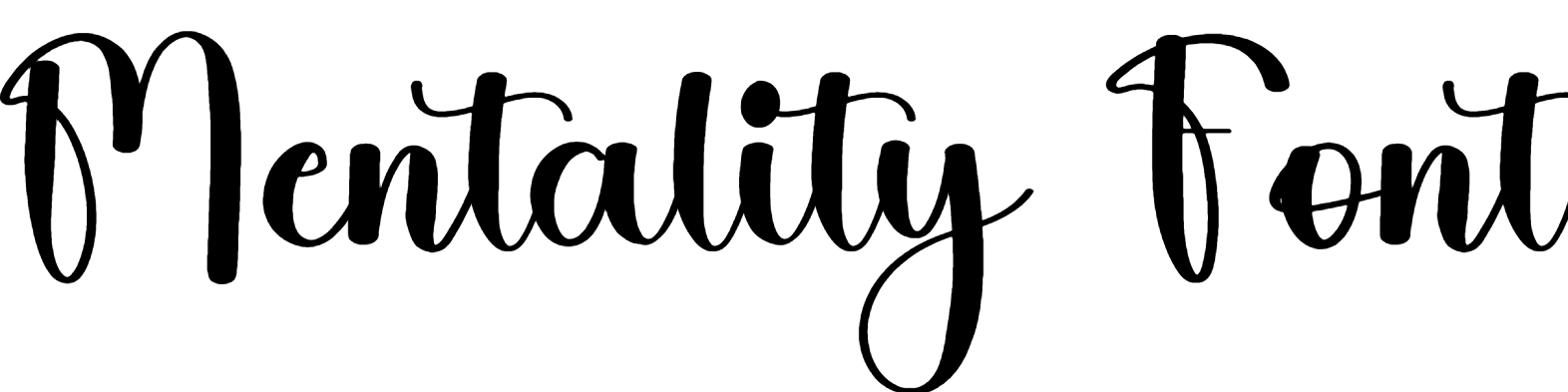
Mentality
Mentality is a calligraphy font. It has that hand-lettered, flowing feel people look for when regular type seems too stiff. You can download it for free and test it with your own words in the preview above.
What You Can Type With Mentality
You get every letter from A to Z in both cases and all the numbers from 0 to 9, which means Mentality can handle full sentences, dates and prices. Common punctuation such as &, !, ? and @ is included as well. It also has the accented letters you need for Spanish, French, Portuguese and Italian.
Ligatures and Smart Letters in Mentality
Where Mentality Works Best
Mentality is a natural fit for wedding invitations, certificates and elegant quotes. The file has no kerning data, so in logos and big titles check pairs like AV, To and Wa and tighten the spacing by hand. Script fonts read best in short bursts, so keep it to names, titles and one-line quotes. Skip all caps: script capitals are drawn to start a word, not to fill one.
Does Mentality have ligatures?
Yes. Mentality has ligatures that turn on by themselves in most design apps and browsers, so you don't need to do anything special.
Does Mentality support accented letters?
Yes. Mentality includes the accented letters needed for Spanish, French, Portuguese and Italian, so it works for more than just English.